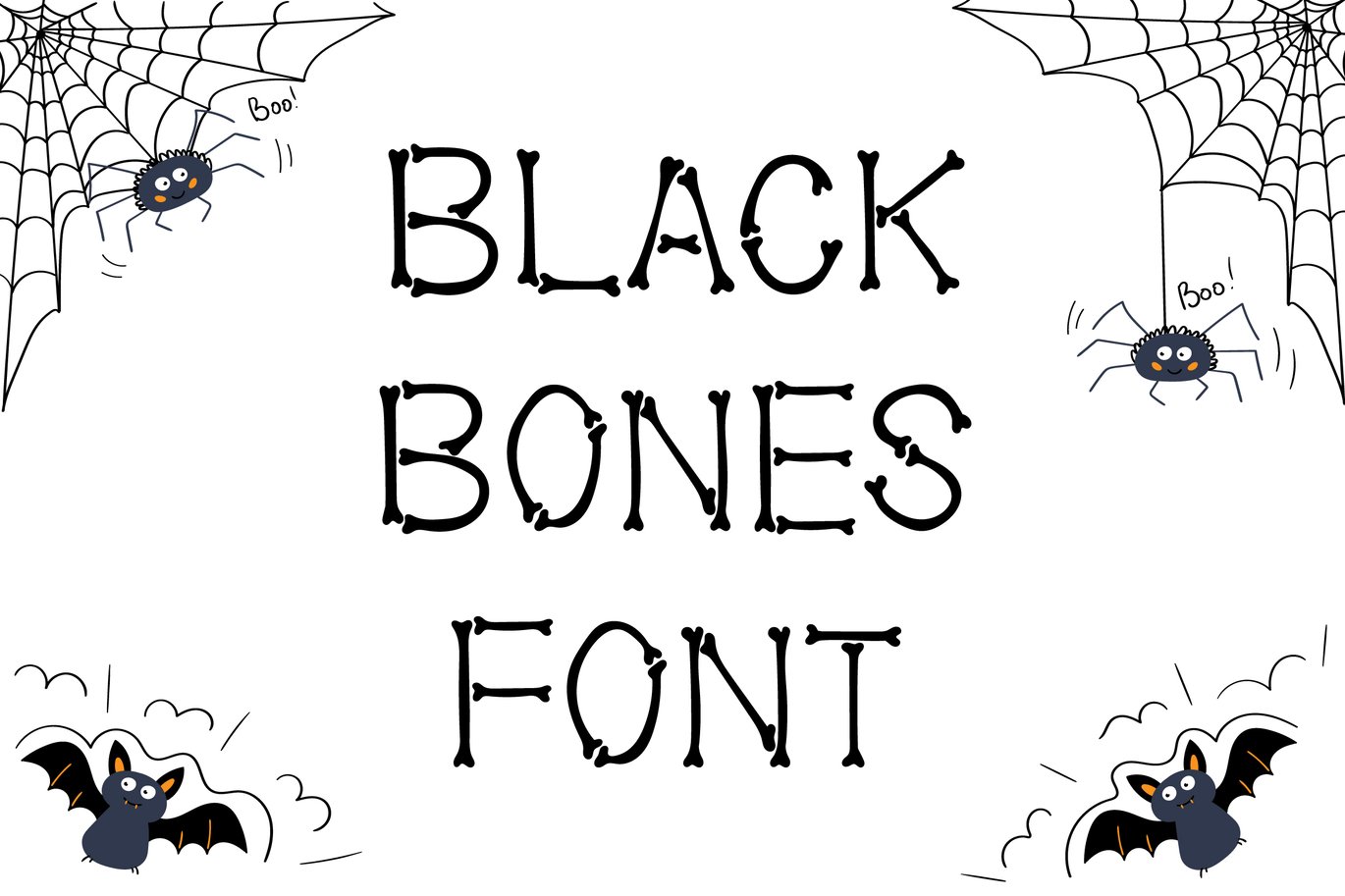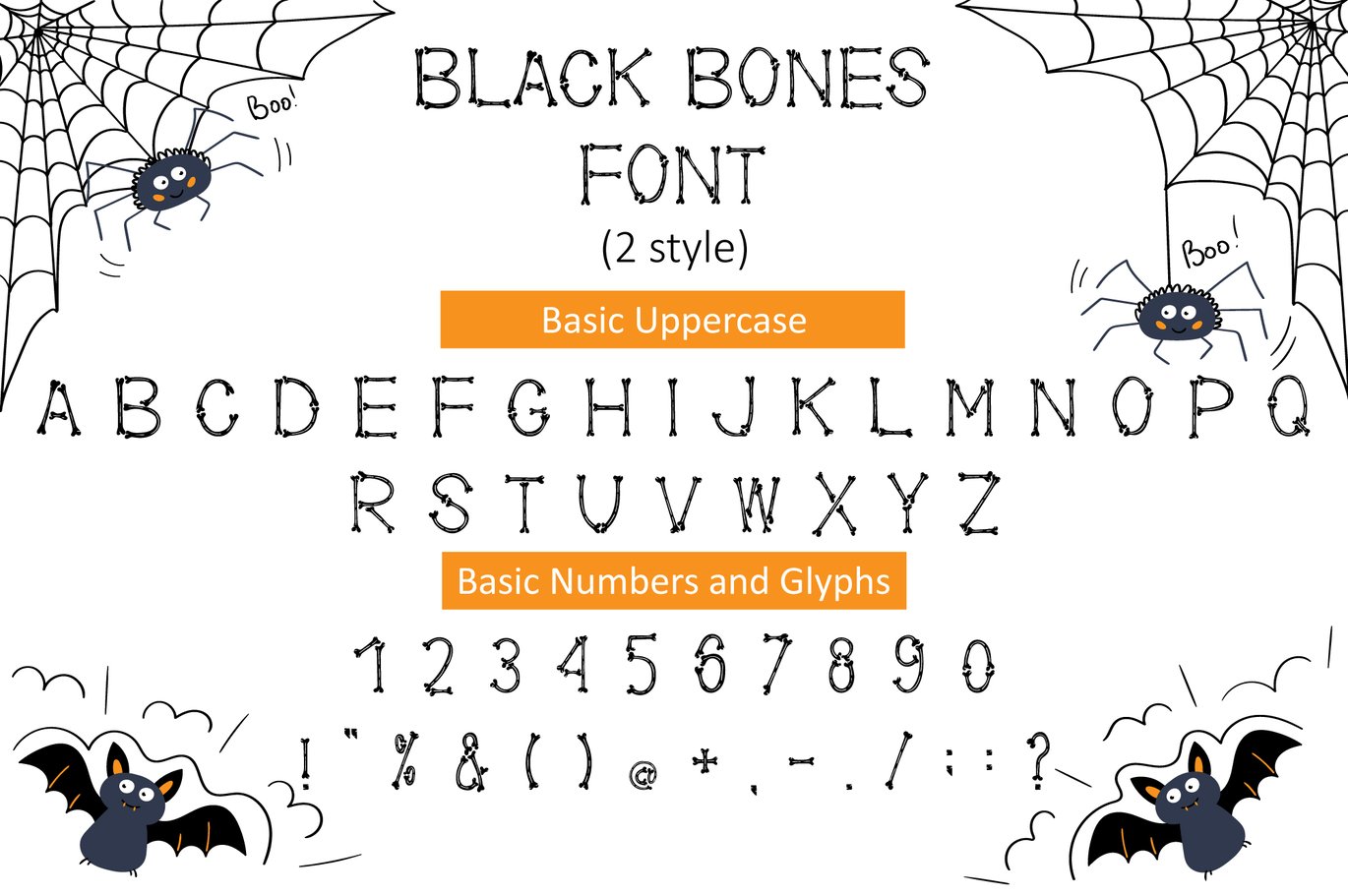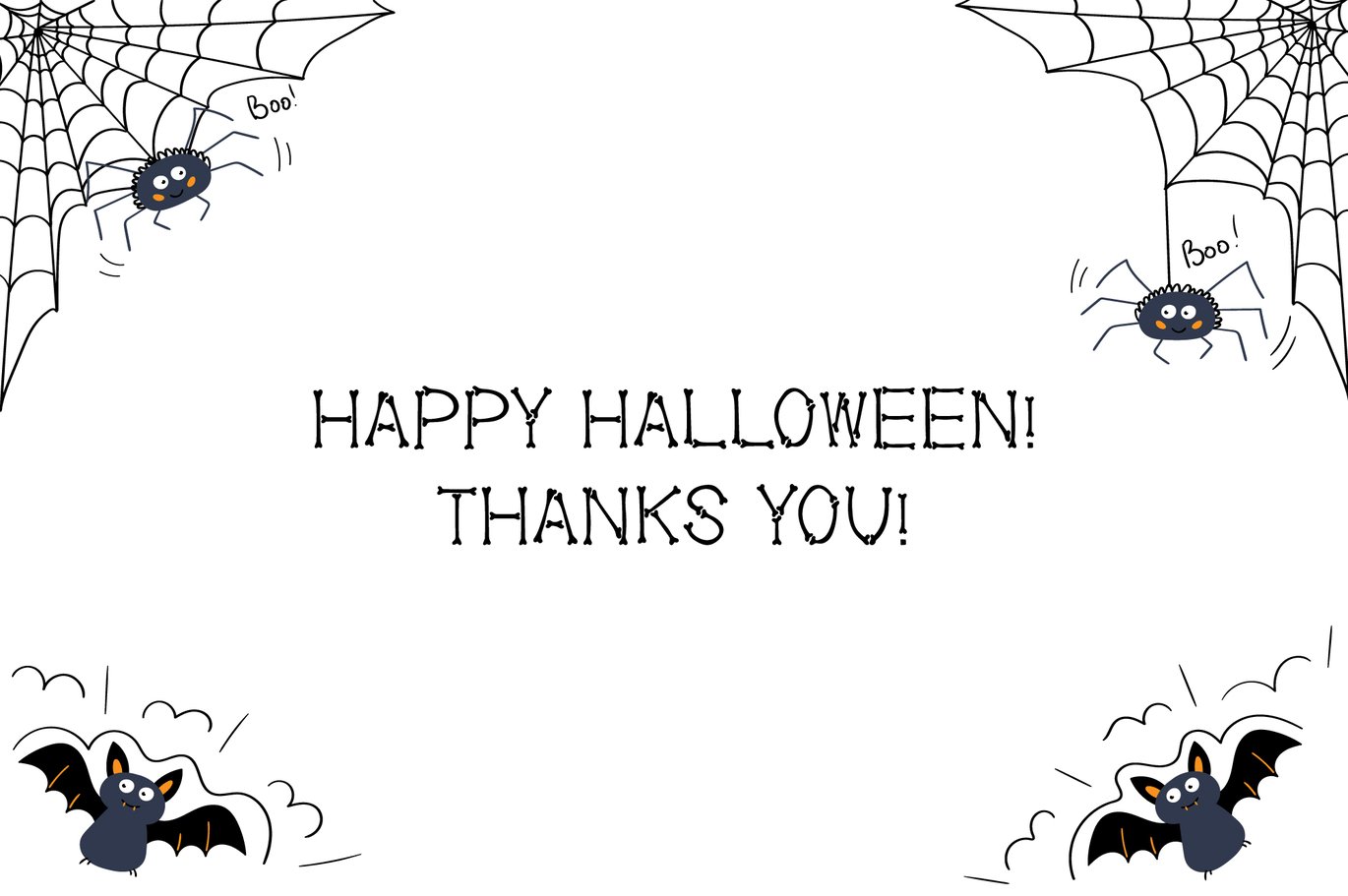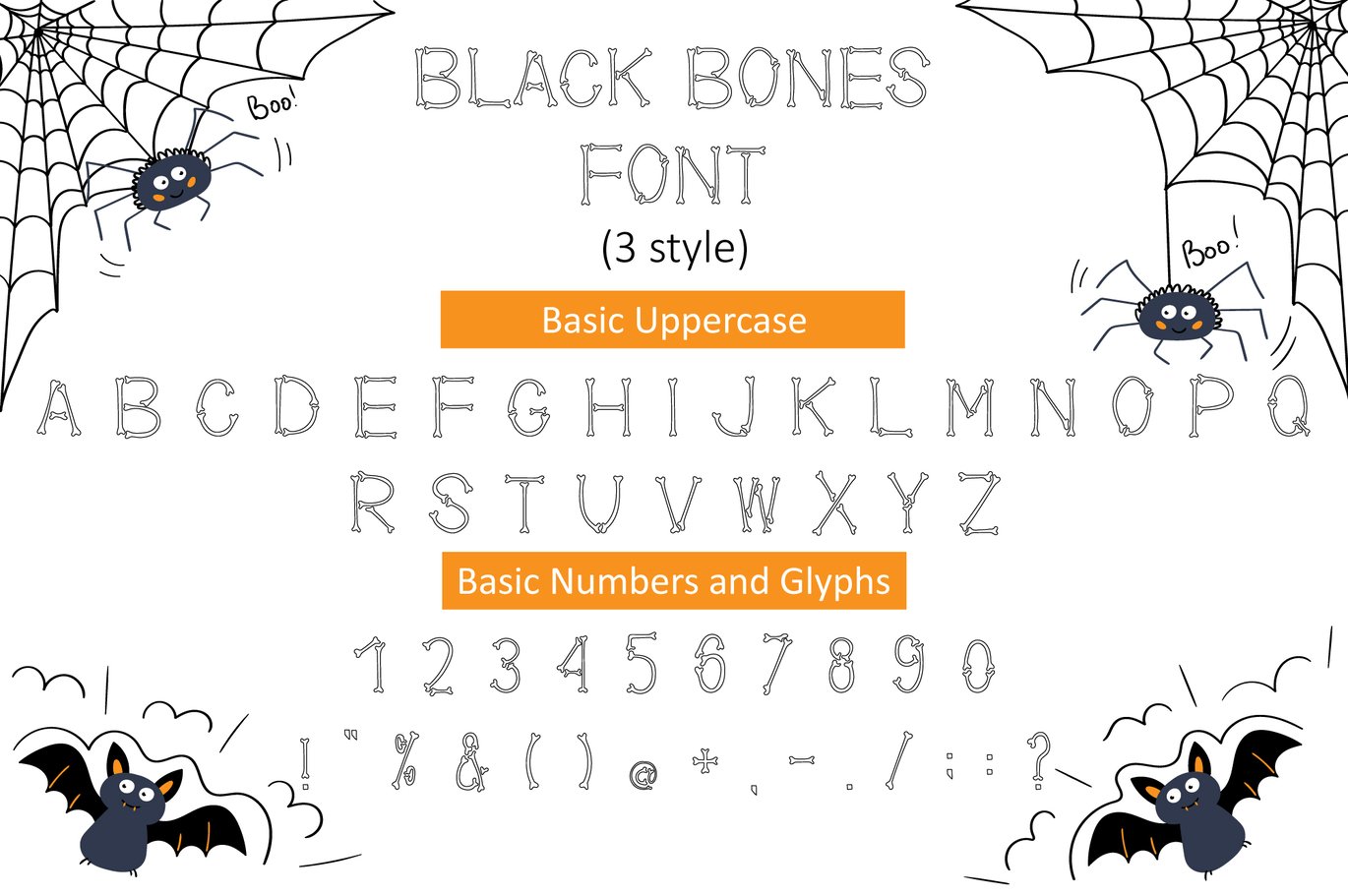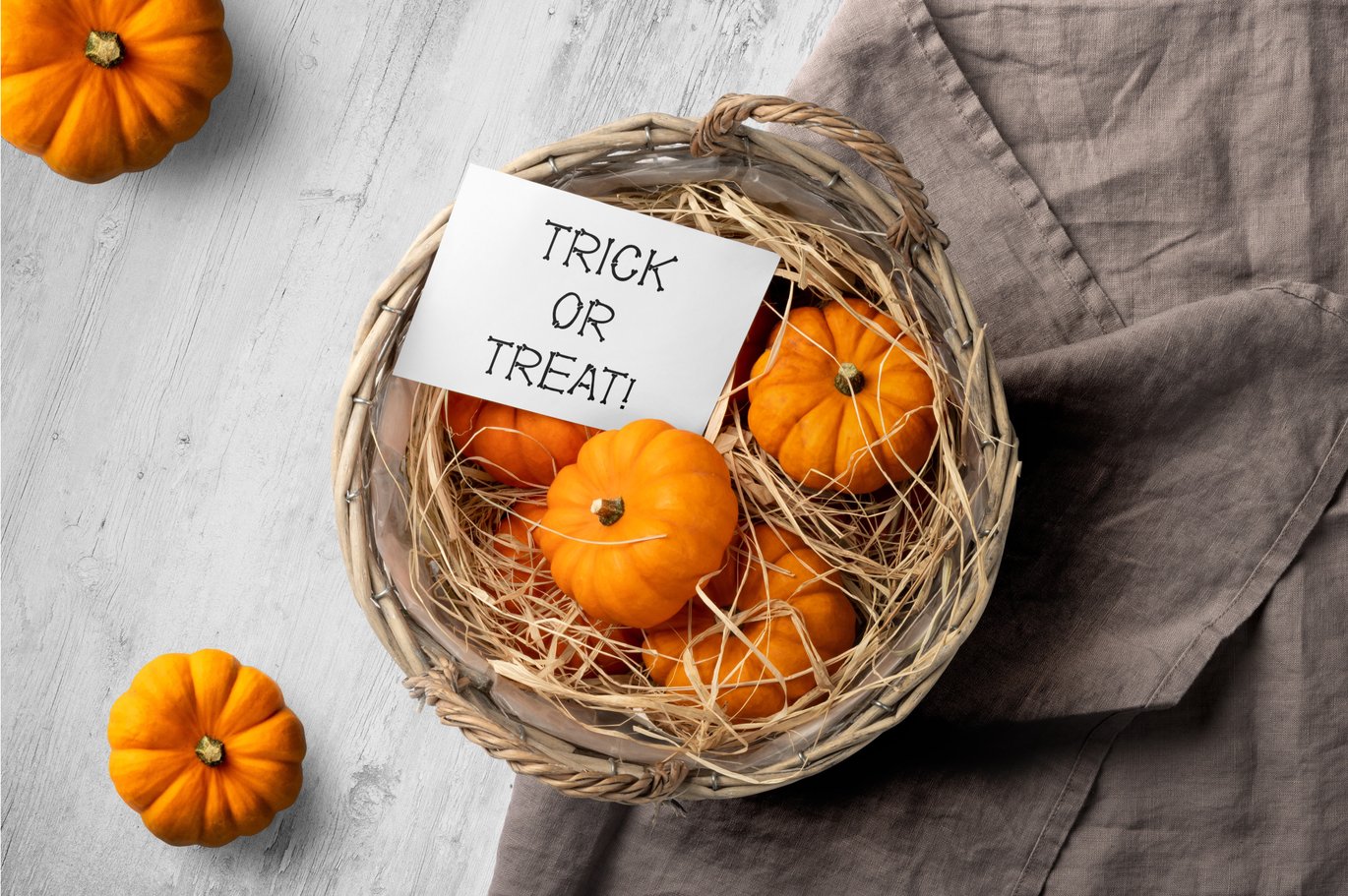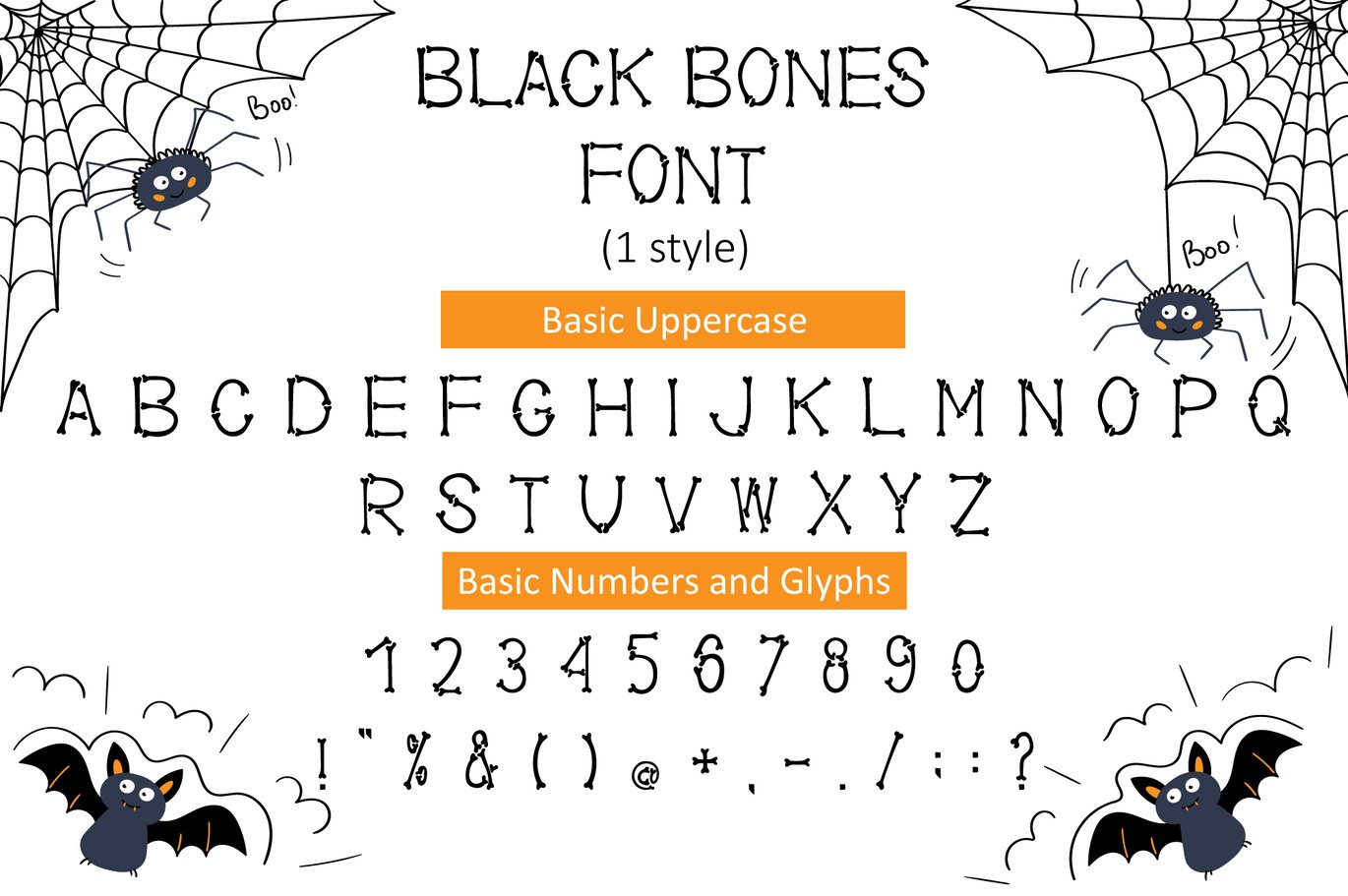
Black Bones Halloween Font
The font is suitable for a Halloween theme. Scary Dead Man’s Bone Font can be used on T-shirts, invitations, greeting cards, and more. Application as heading or main font. The font represents the spirit of Halloween.
- 3 styles of decoration: black bones, bones with cracks, bones with a stroke.
- Each font consists of basic uppercase English letters, numbers, and punctuation marks.